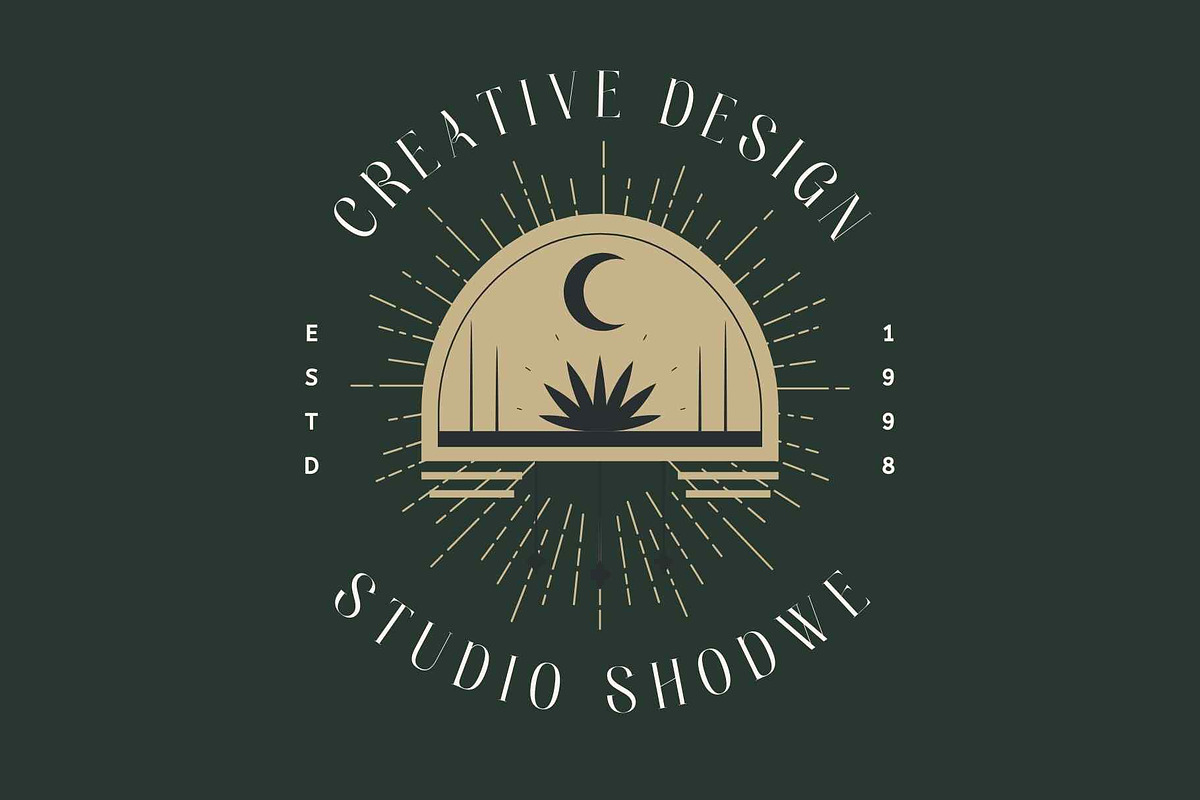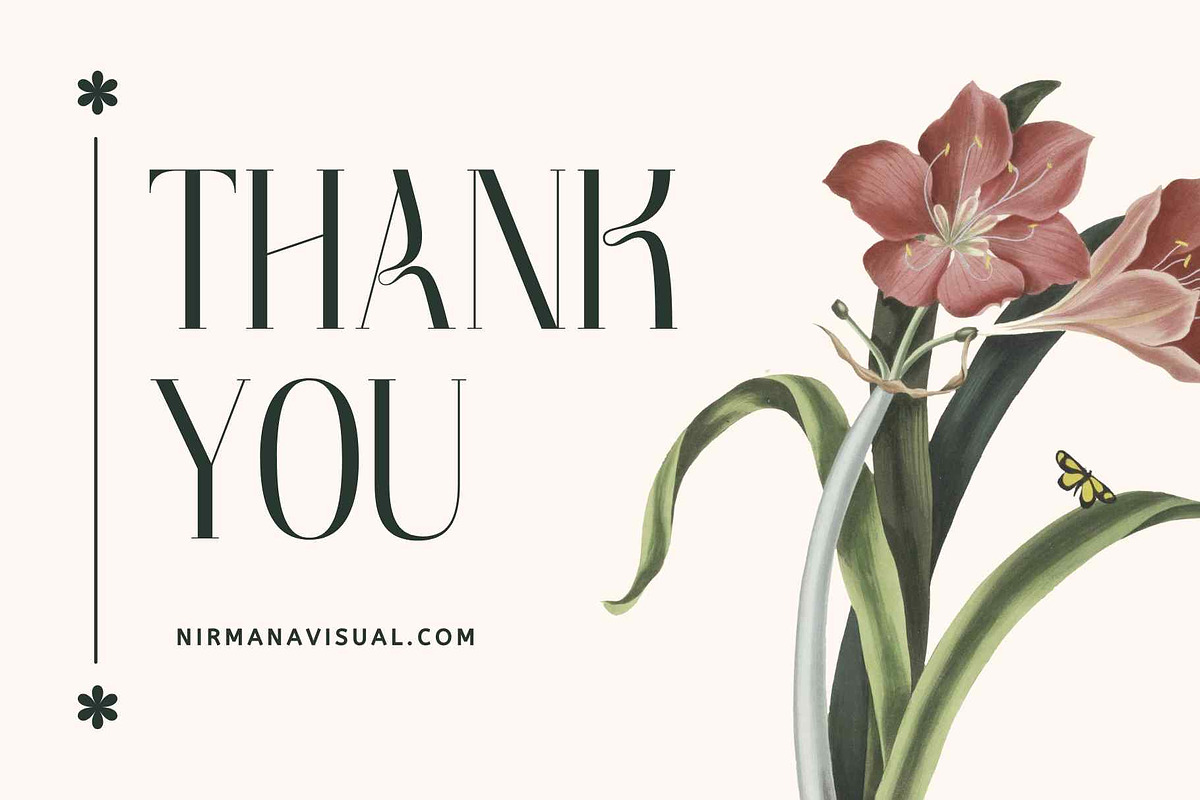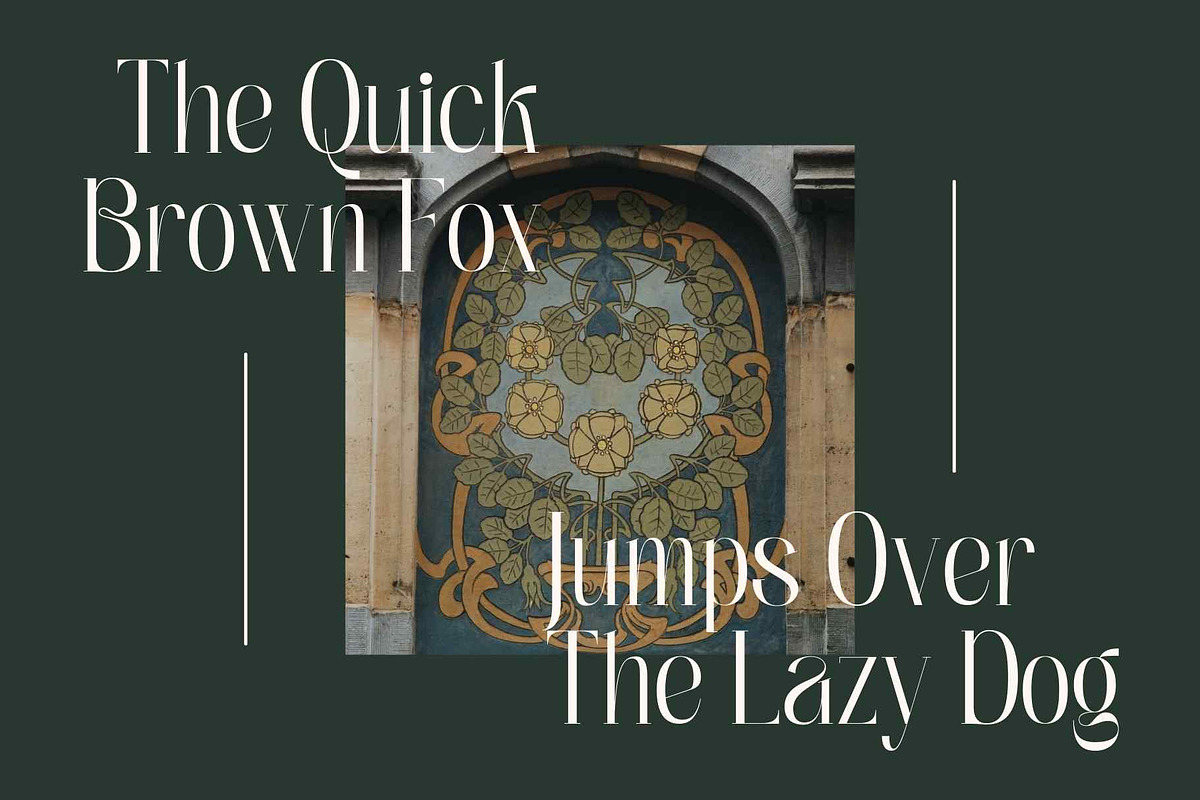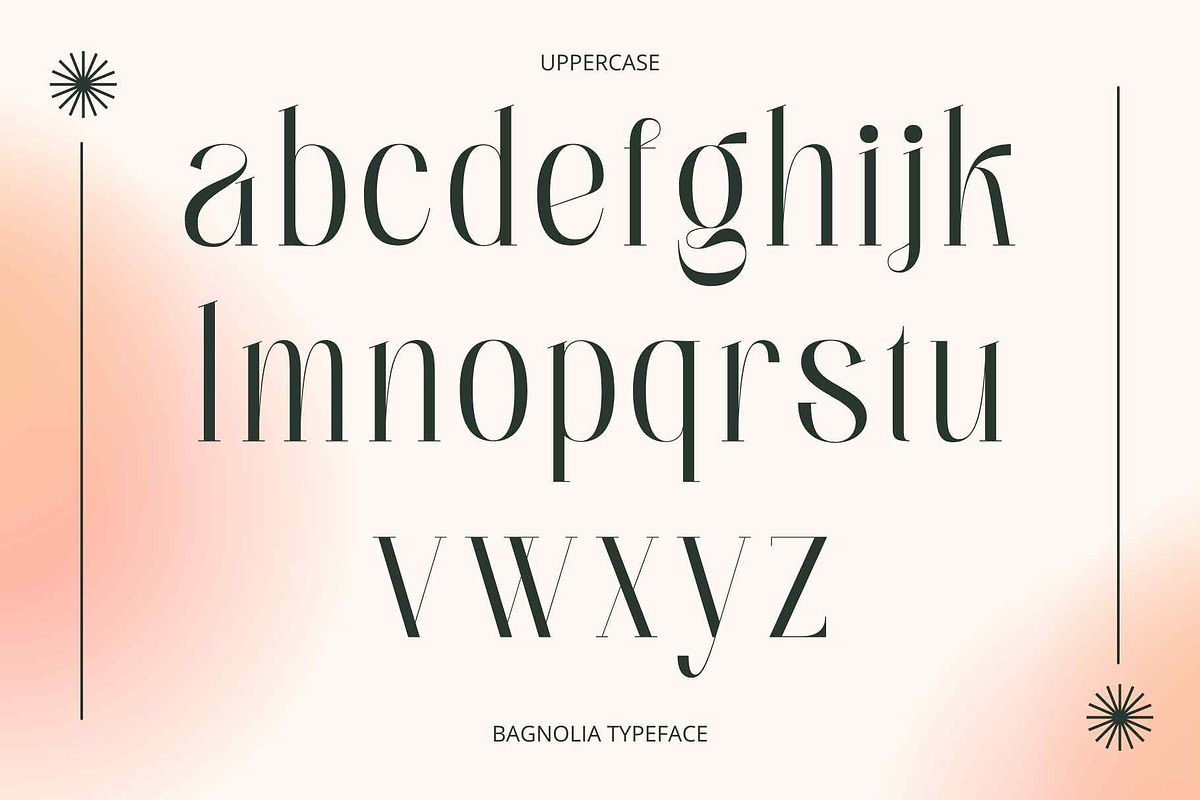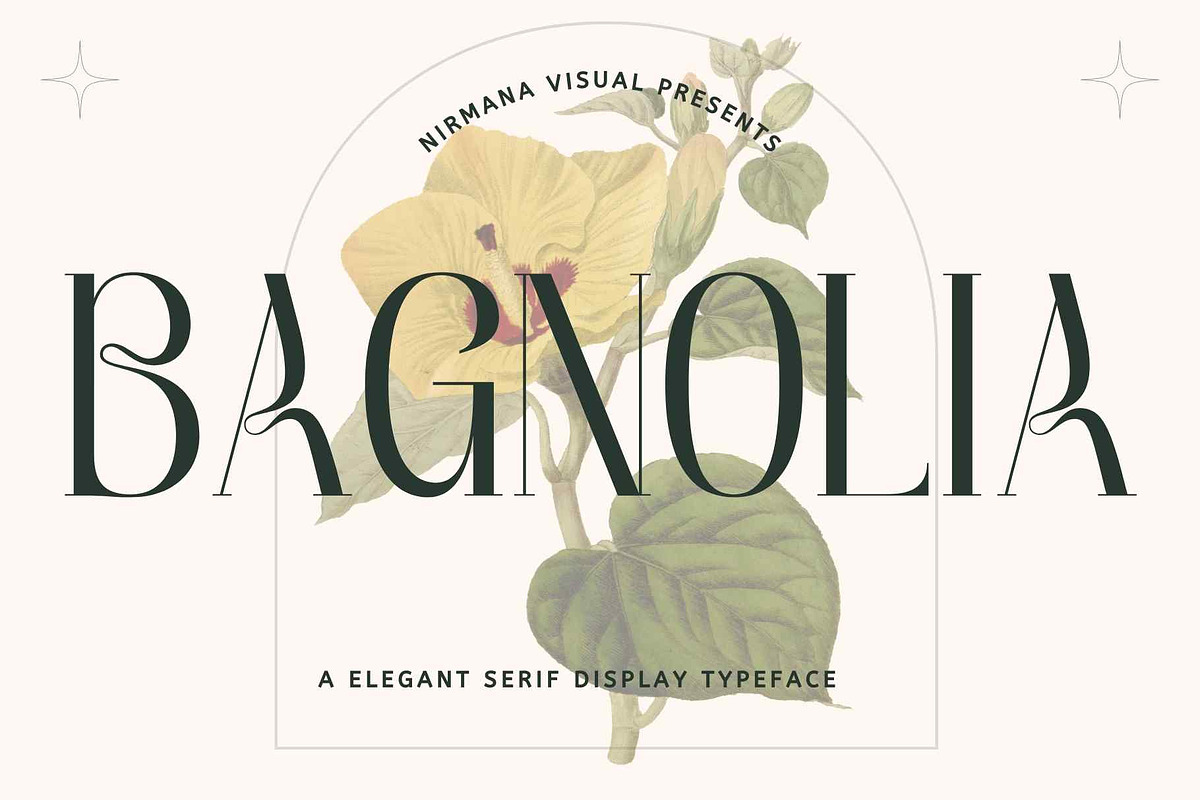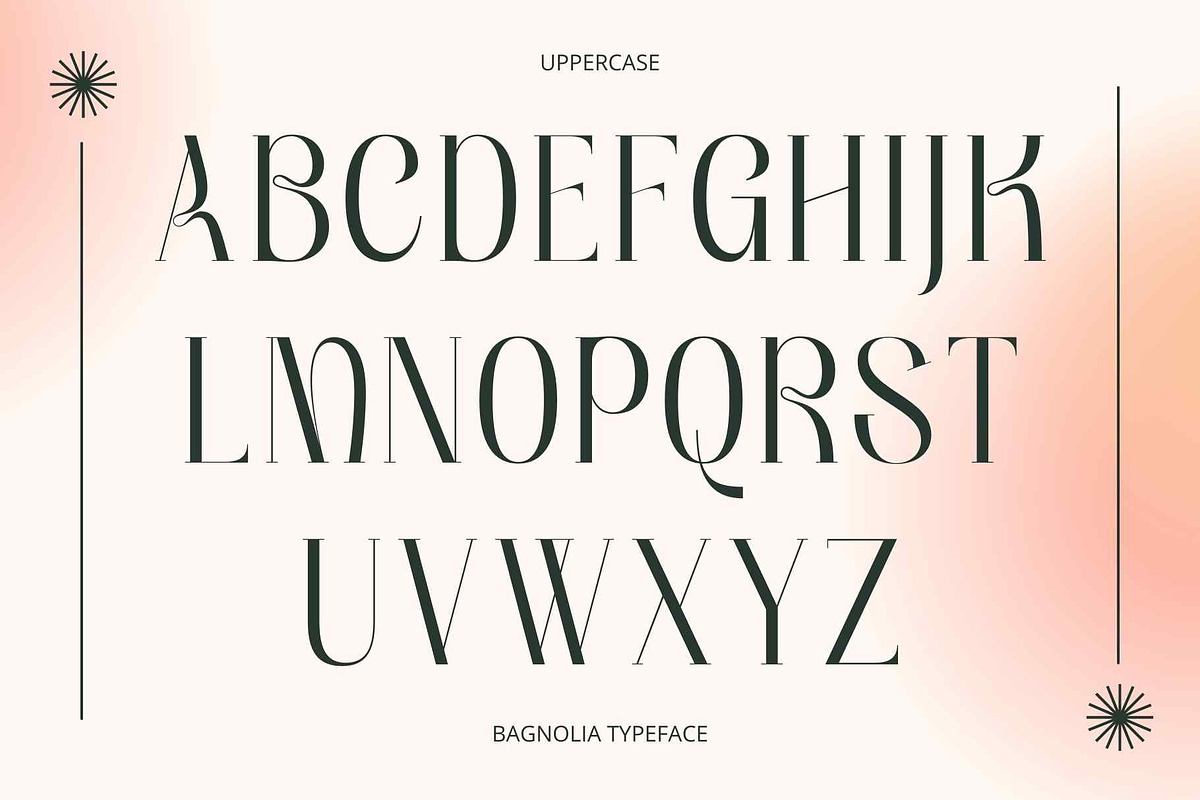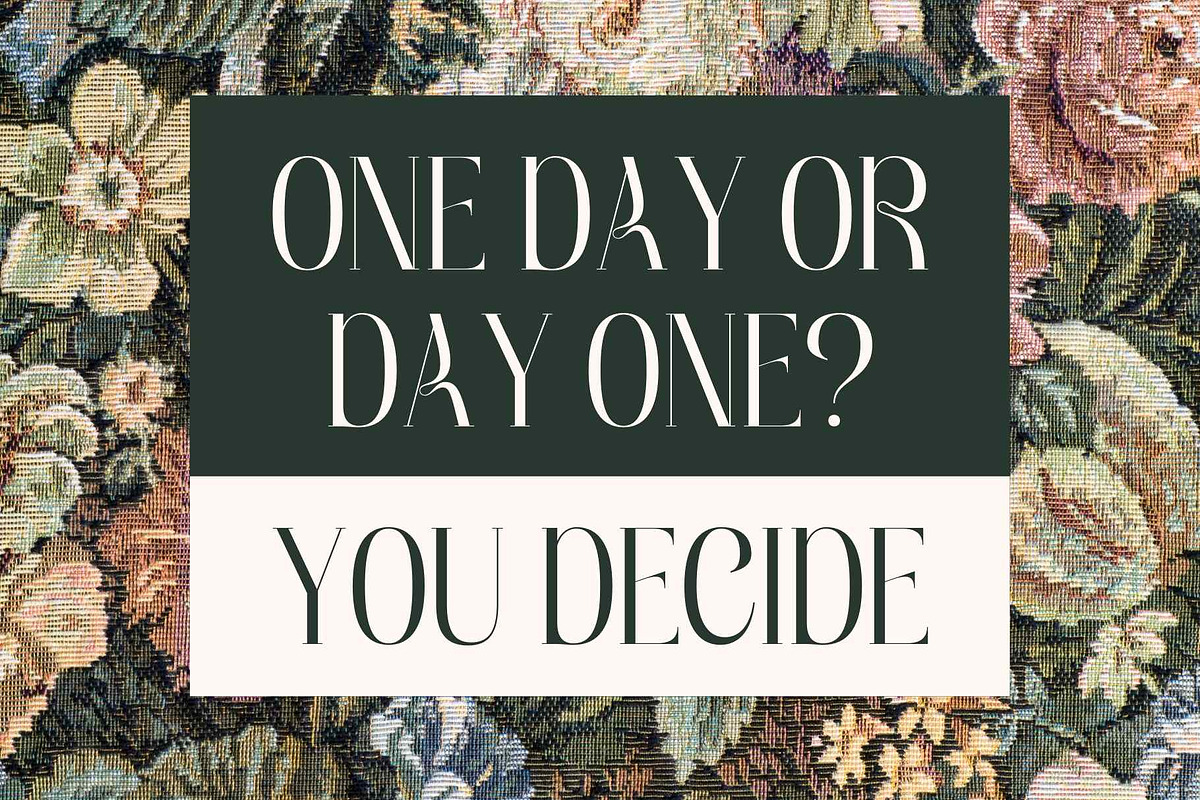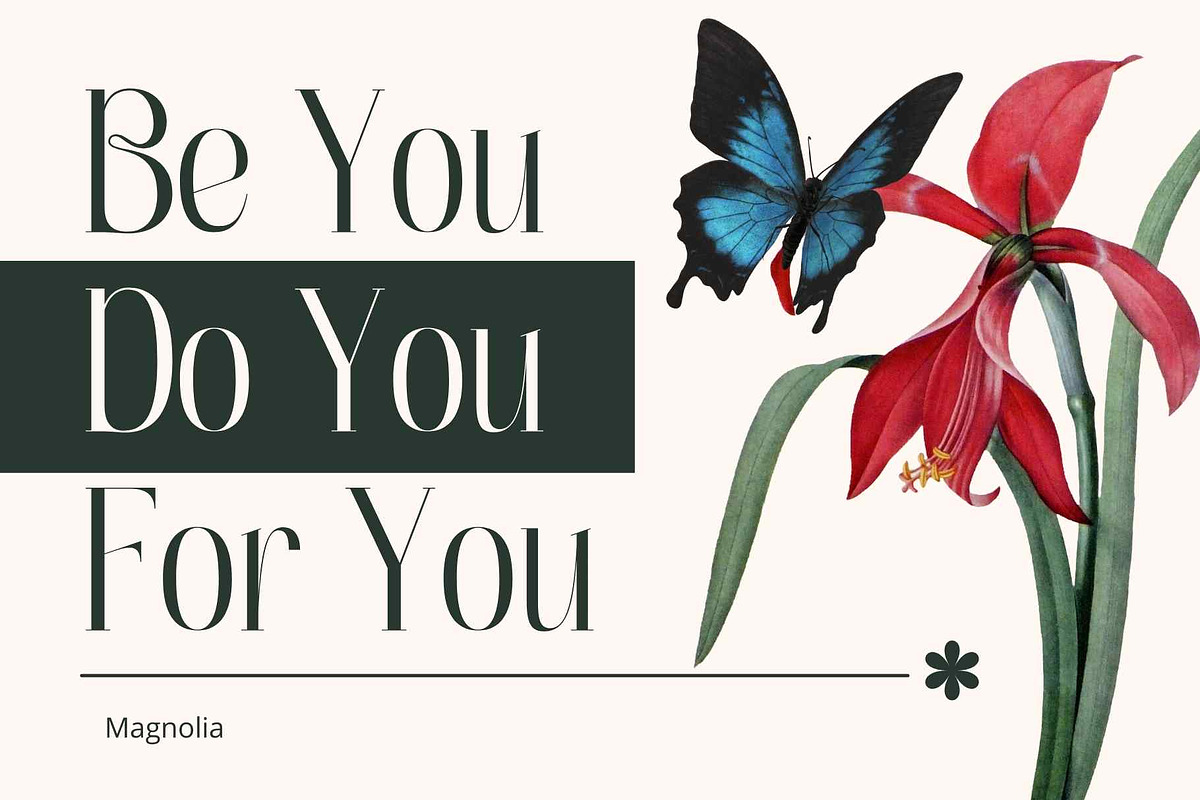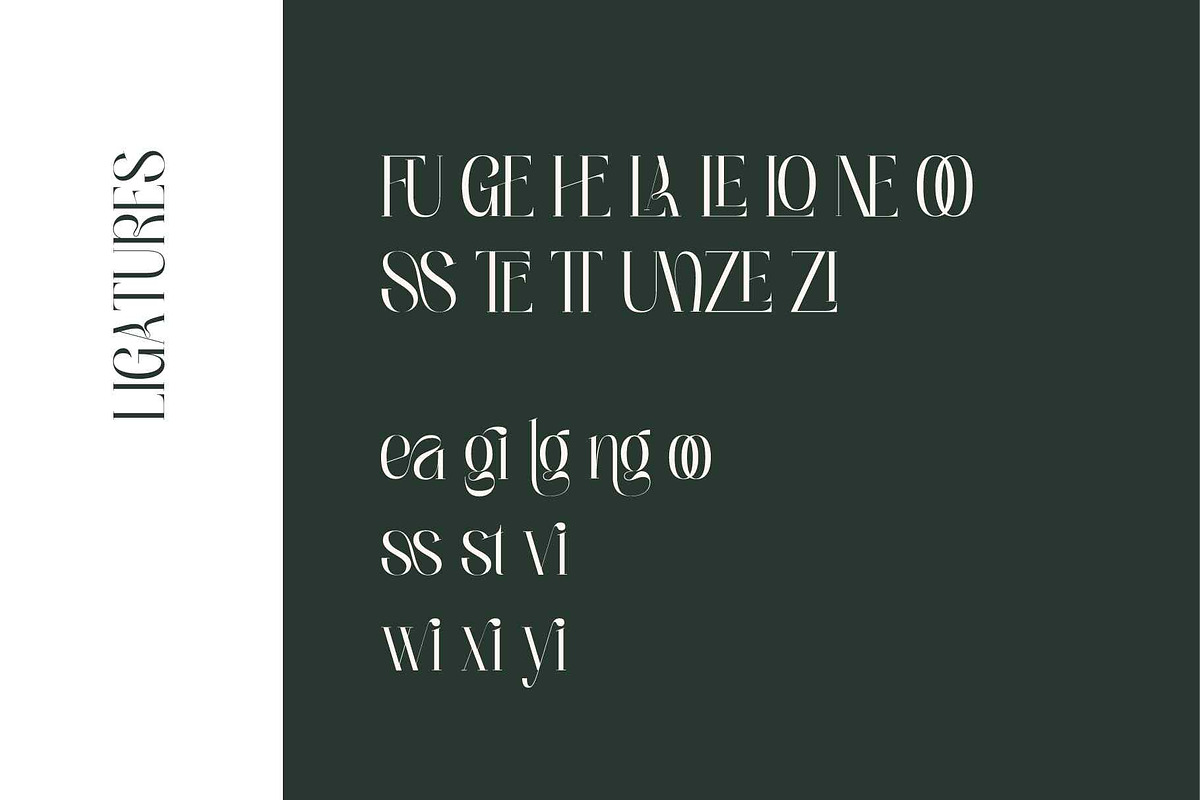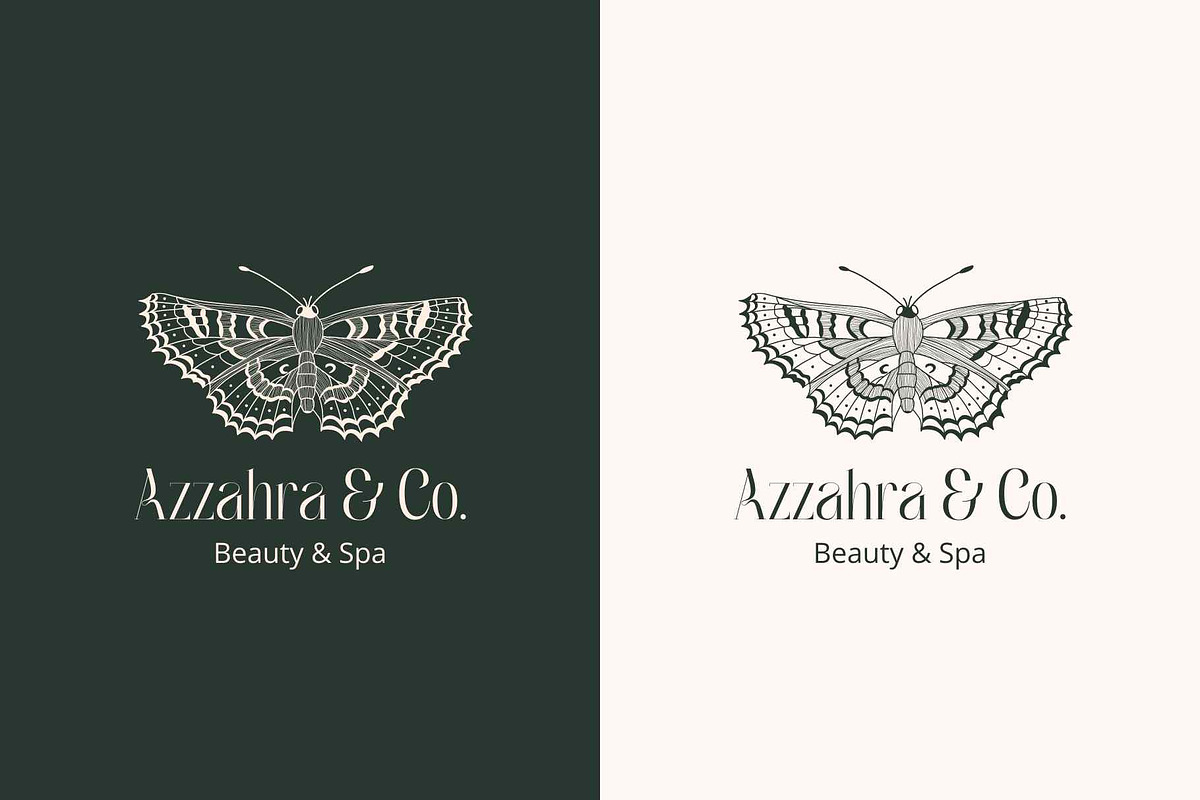
Bagnolia - Serif Display
Bagnolia, contemporary of Serif font,
Bagnolia offers beautiful typographic harmony for a diversity of design projects, including logos & branding, social media posts, advertisements & product designs.